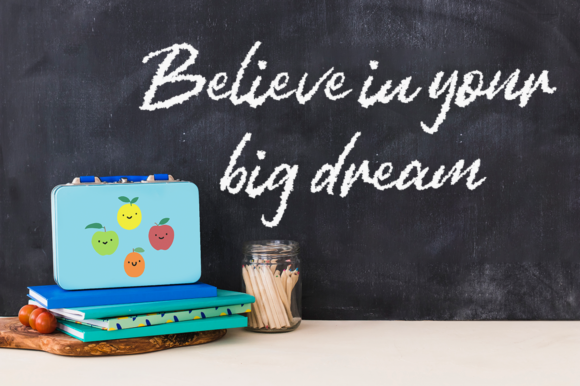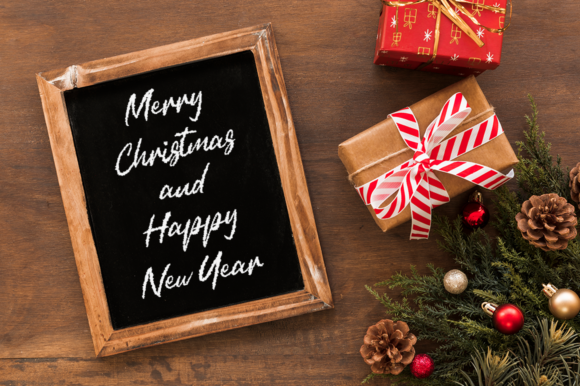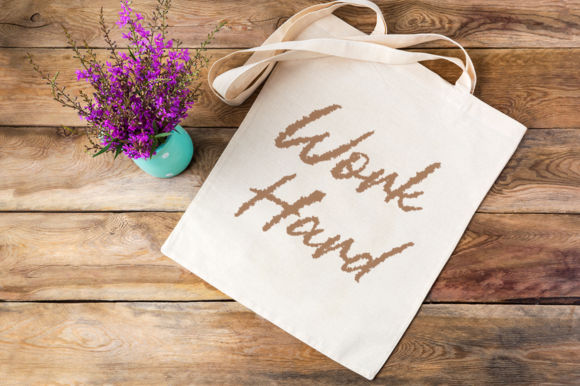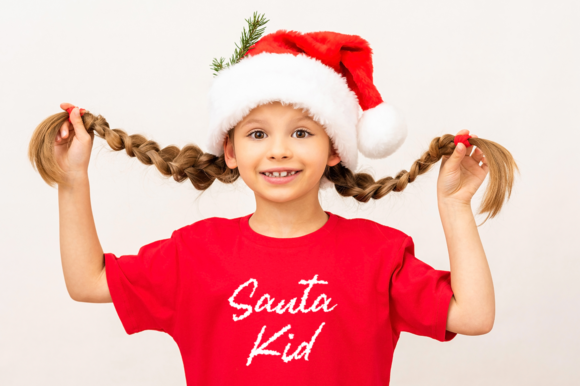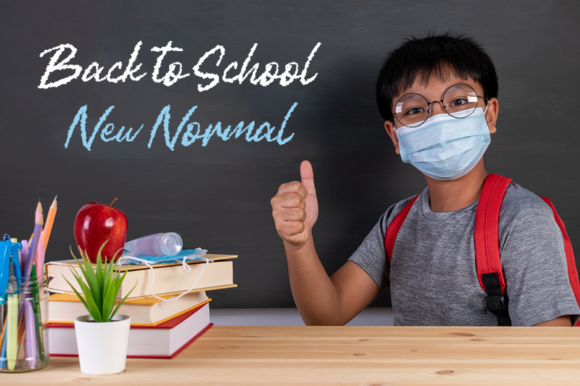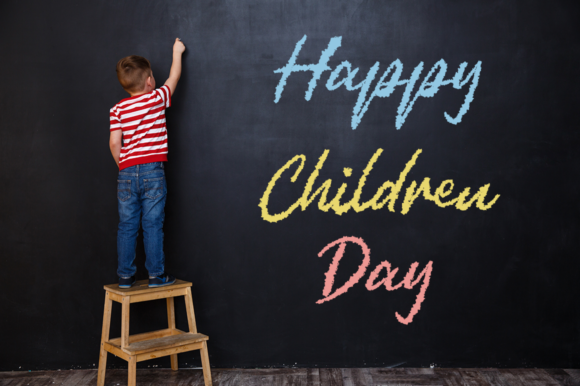
Introduction to Chalk Talks Font
Chalk Talks is a brushed handwritten font.
No matter the topic, this font will be an incredibly asset to your fontsโ library, as it has the potential to elevate any creation .
Key Features of Chalk Talks Font
Why Choose Chalk Talks Font?
Chalk Talks Font offers exceptional quality and versatility, making it a valuable addition to your design toolkit. Whether you’re creating for personal projects or commercial use, Chalk Talks Font delivers professional results.